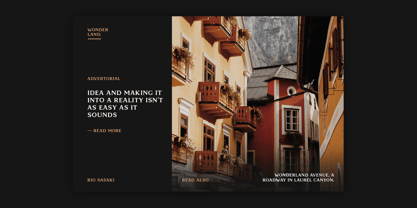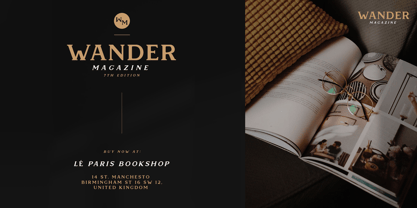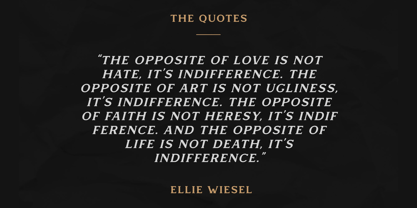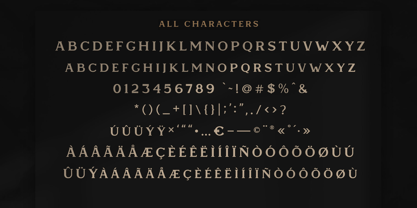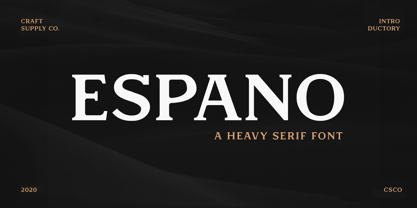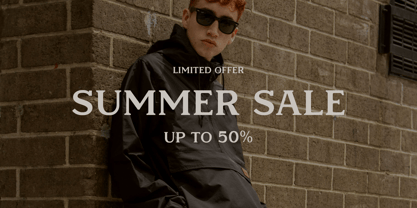
Espano
The Espano Font Family was designed by Trio Nazzar Saputra, Wahyu Hadi Yuana and published by Craft Supply Co. Espano contains 2 styles and family package options. More about this family
Espano – A Heavy Serif Font is a heavy serif font family whose design refers us to the style of modern serif. The distinctive features of Espano – A Heavy Serif Font are the relatively low contrast of strokes, the slightly squarish shapes of round characters and the emphasized business like simplicity.
Espano – A Heavy Serif Font has been crafted from scratch with a structural logic of its own: a fusion of pure geometry and optical balance. By combining a variety of styles Espano – A Heavy Serif Font is suitable for Logo, greeting cards, quotes, posters, branding, name card, stationary, design title, blog header, art quote, typography
Espano – A Heavy Serif Font also suitable for art, modern envelope lettering or book design, happening style like handdrawn design or watercolor design theme, craft design, any DIY project, book title, wedding font, pop vintage design, or any purpose to make our art/design project look pretty and trendy.